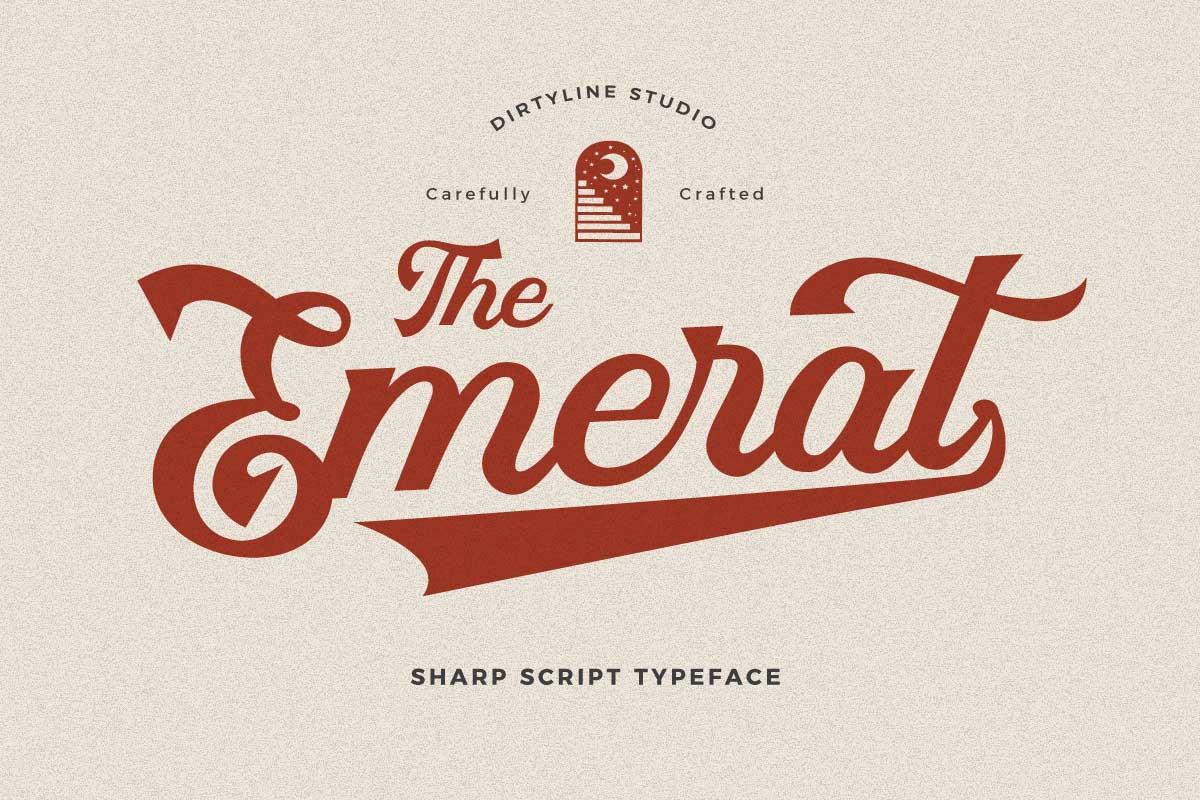
Emerat - Sharp Script Old Vintage Font Free Download is a bold and distinctive script typeface that draws inspiration from vintage signage and retro calligraphy. With its sharp edges, dramatic strokes, and old-school charm, this font is perfect for creating eye-catching designs such as logos, posters, branding, packaging, and more.
The font’s classic vintage style combined with sharp, modern elements gives it a unique and timeless appeal. Whether you’re working on a retro-inspired brand, designing for a vintage event, or creating artistic promotional materials, Emerat brings a powerful, nostalgic touch to your typography.